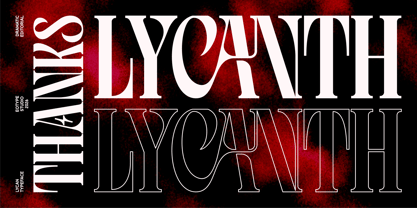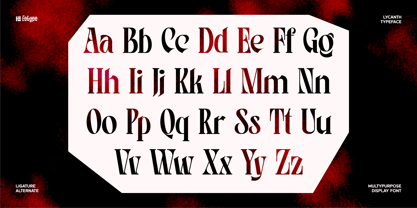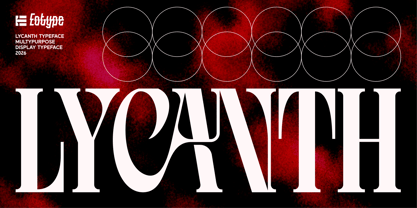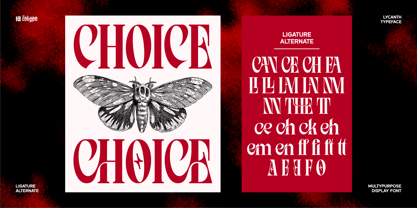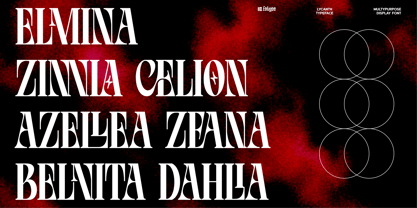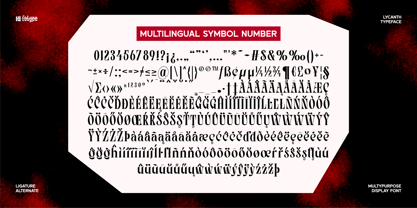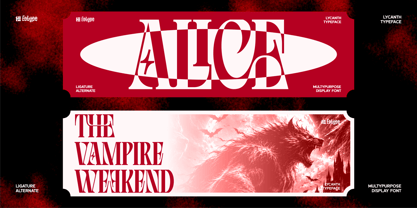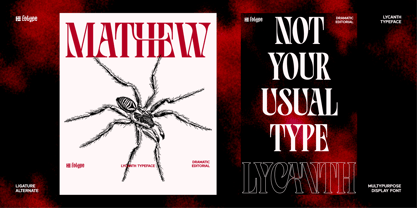
Lycanth
by Eotype
The Lycanth Font Family was designed by Fajar Ramadan and published by Eotype. Lycanth contains 1 styles. More about this family
LYCANTH is a bold and expressive serif display typeface designed to bring a dramatic, sophisticated, and distinctive character to your typography projects.
Featuring high-contrast strokes, elegant curves, sharp details, and unconventional letterforms, LYCANTH combines the timeless elegance of classic serif typography with a contemporary editorial attitude. Its striking shapes are designed to create an immediate visual impact, making it perfect for headlines, branding, fashion, posters, magazines, album artwork, packaging, and other expressive display applications.
LYCANTH comes with a carefully designed collection of uppercase and lowercase characters, punctuation and symbols, ligatures, alternate glyphs, and multilingual support, giving you greater flexibility to create unique and sophisticated typographic compositions.
Whether you are creating a luxury fashion identity, an editorial layout, an eye-catching poster, or a bold brand campaign, LYCANTH brings a refined yet rebellious personality to your designs.